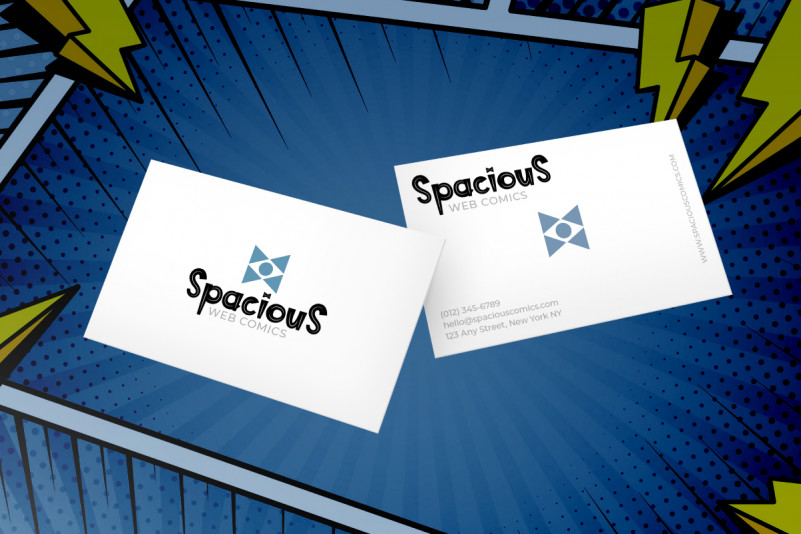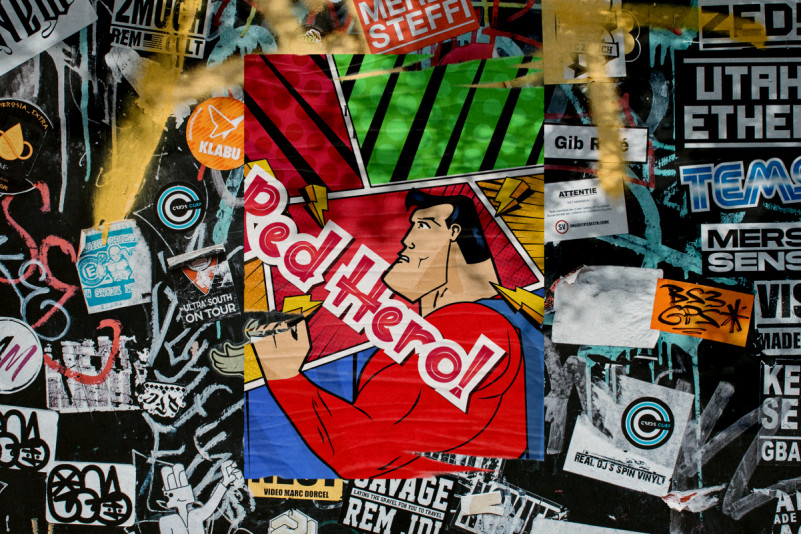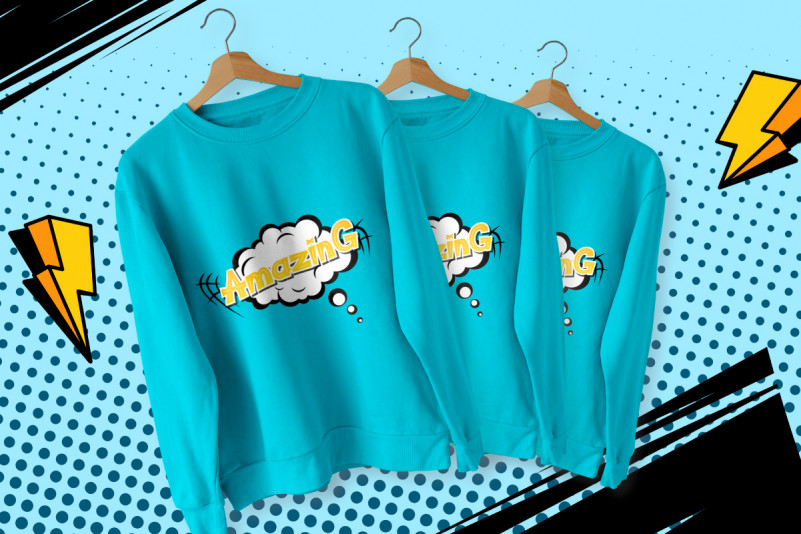
Super Red Font
Super Red Display Font
This is a fun comic brush font with cartoon theme style. The font will be awesome for brands, packaging, invitation, games. etc. Super Red Comic Font will suit many industries and categories related to kids, humor, family etc. It will work well for books, packaging, toys, homewares etc